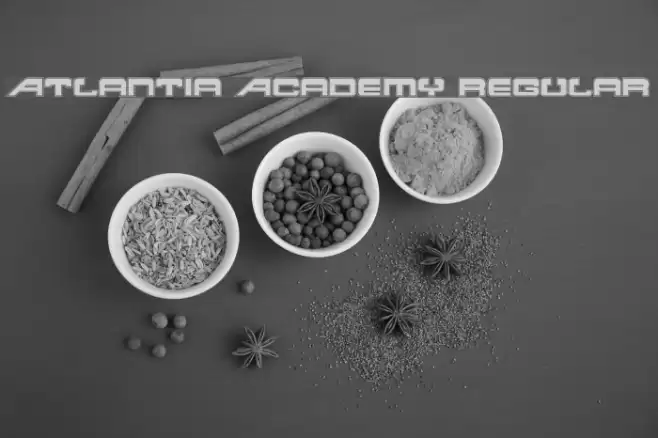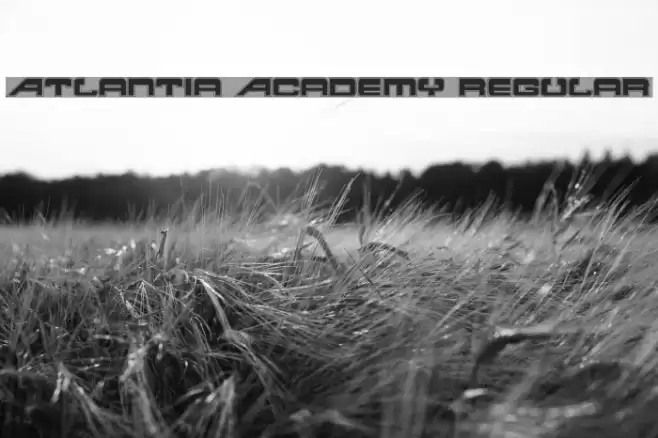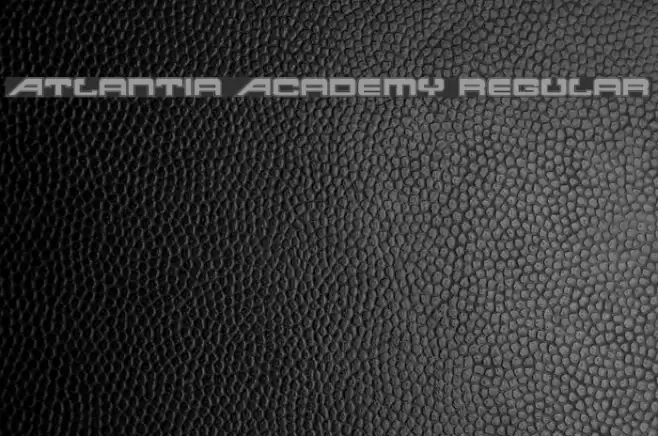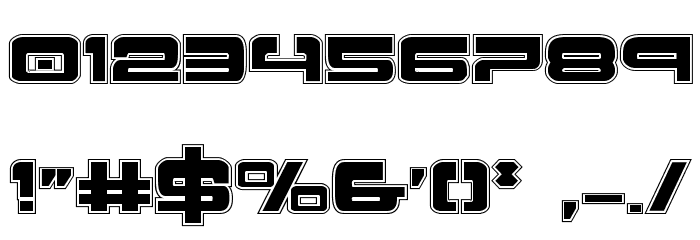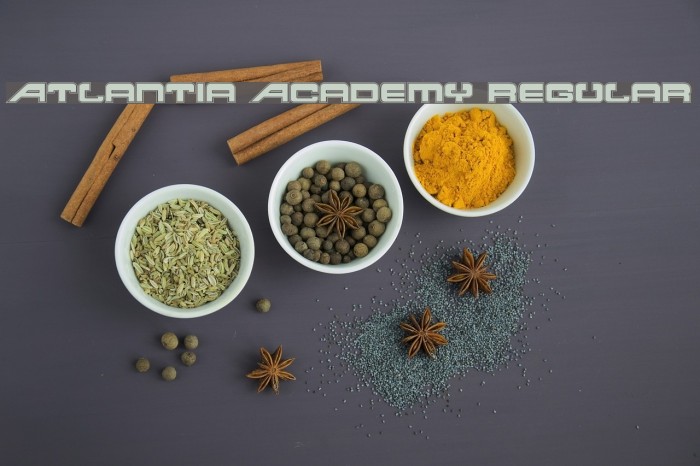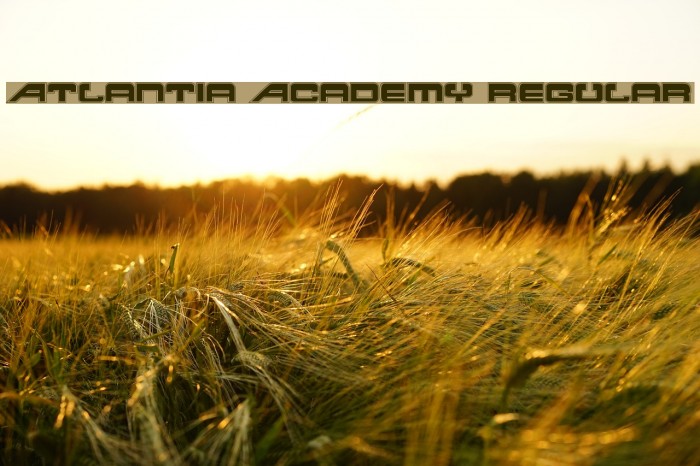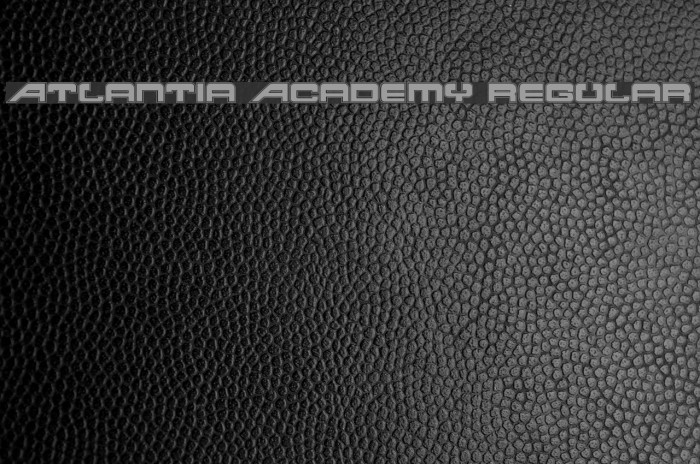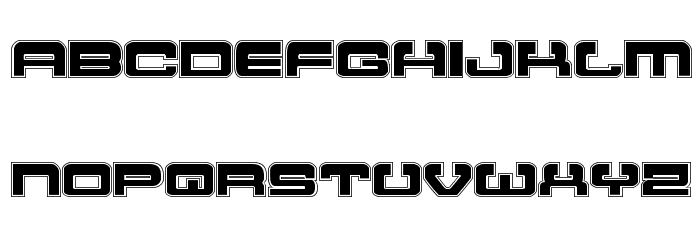
Atlantia Academy Regular Font
Atlantia Academy Regular Description
This font features a futuristic and geometric design with bold, angular lines and a distinct outline effect. The characters are uppercase and lowercase, with a consistent width and a slightly condensed appearance. The numbers and special characters maintain the same stylistic elements, creating a cohesive look. The font's strong presence and unique style make it suitable for attention-grabbing designs.
A futuristic, geometric font with bold, angular lines and an outline effect from Uncategorized fonts.
- Proposed Projects: Ideal for sci-fi themed projects, tech branding, video game titles, and modern posters.